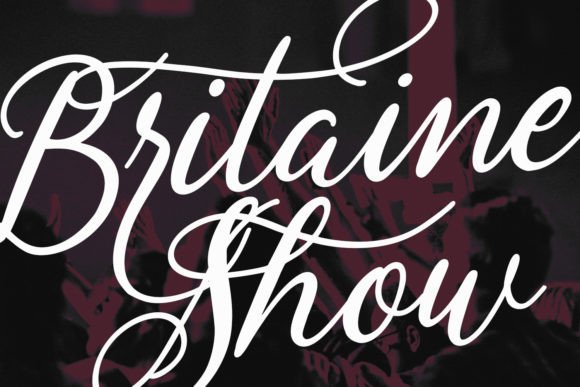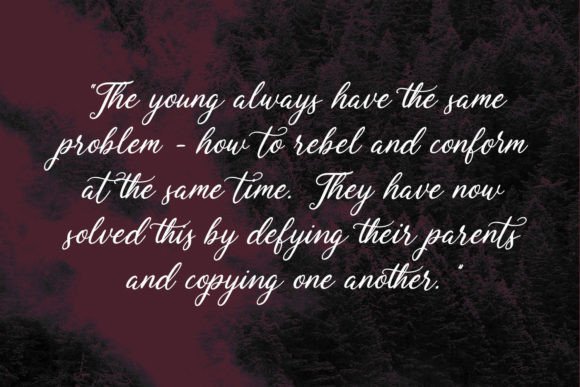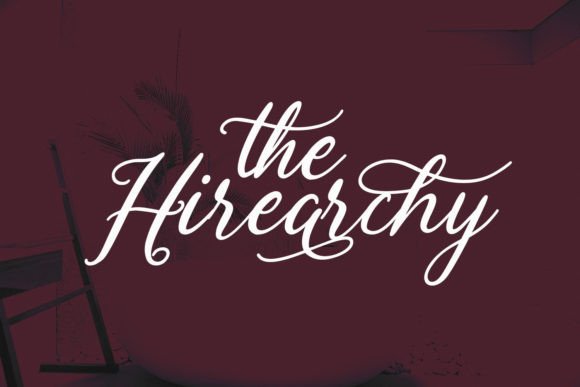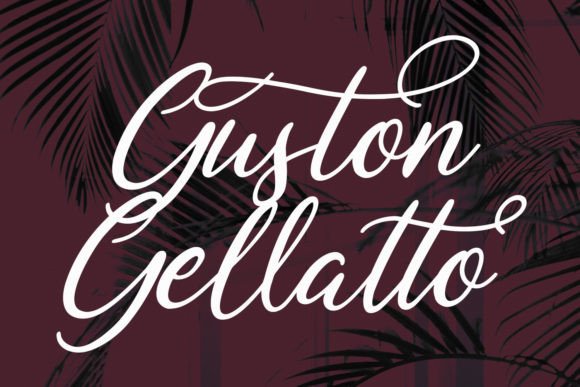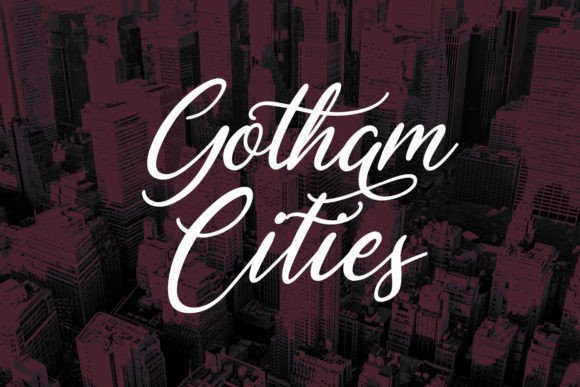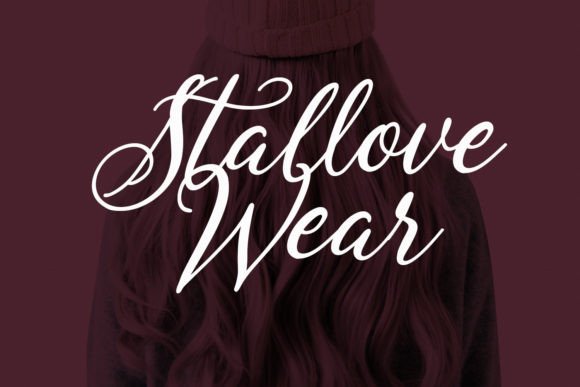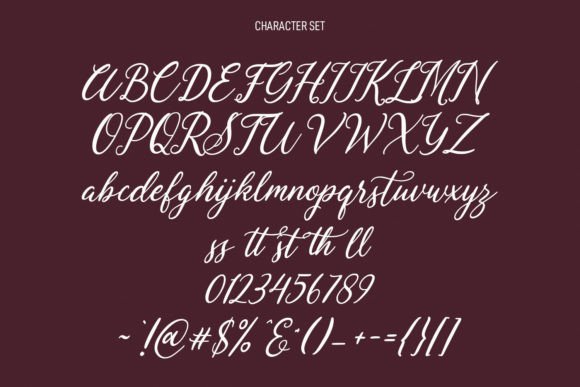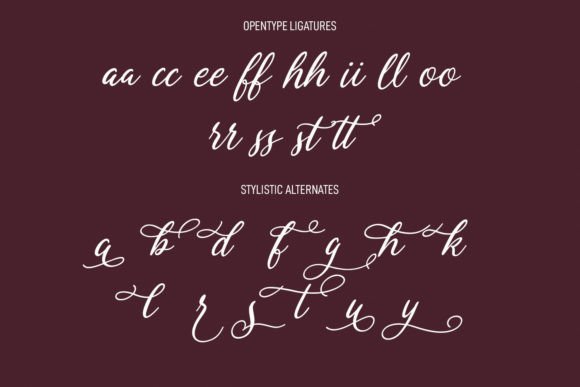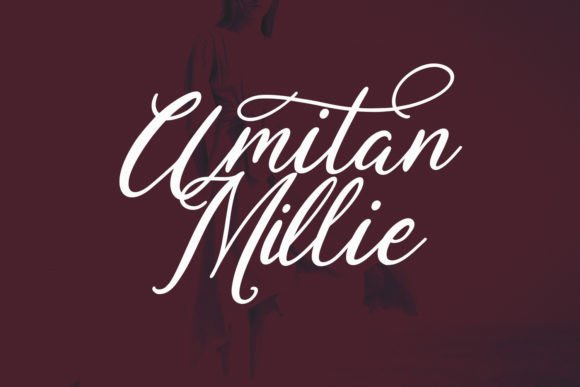
Sinterlia Font
About Sinterlia Font
Introducing Sinterlia, a captivating handwritten script font that effortlessly combines fancy details with medium-contrast strokes. Packed with playful characters, subtle ligatures, and alternates, Sinterlia is designed to add a touch of creativity to your projects. This versatile font is well-suited for various applications, including logo design, social media graphics, movie titles, book titles, short text, and long text. It also pairs seamlessly with both sans and serif fonts, making it an ideal choice for secondary text.
The medium-contrast strokes of Sinterlia strike a perfect balance, providing a harmonious flow to the characters. Each letter exudes a sense of whimsy, making it an excellent option for projects where a touch of playfulness is desired.
Explore the charm of ligatures and alternates within Sinterlia, offering you additional creative possibilities. These features contribute to the unique and customized look of your text, allowing you to tailor the font to suit the specific aesthetic you envision for your design.
Sinterlia is not just limited to a single type of project—it adapts seamlessly to various design contexts. From crafting eye-catching logos that demand attention to creating engaging social media posts, this font offers the versatility needed to make your designs stand out.
Movie and book titles come alive with Sinterlia, as it adds a hint of drama and flair to your typography. The font’s suitability for both short and long text ensures that it can convey your message effectively in a variety of formats.
Consider using Sinterlia for your secondary text alongside a sans or serif font. The combination creates a dynamic visual contrast that enhances readability and overall design appeal. Let Sinterlia be the catalyst for stunning and impactful design work, allowing your creativity to flourish.
In summary, Sinterlia is not just a font; it’s a creative tool that empowers you to make a statement with your design projects. Whether you’re aiming for a playful and whimsical look or a more refined and elegant style, Sinterlia is the key to unlocking the full potential of your creative endeavors. Create stunning work that captivates and resonates with the distinctive charm of Sinterlia.